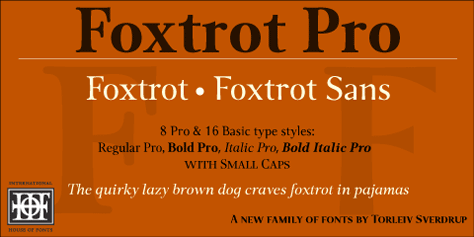
P22's Foxtrot Font Family Designed for Text & Display
The P22 Foxtrot Pro family of fonts is the latest design by Norwegian type designer Torleiv Sverdrup for IHOF. The design of Foxtrot is inspired by the lively ballroom dance of the same name. It is a transitional antiqua with rounded serifs that features ligatures, smallcaps, oldstyle numerals and full Central European support for those with applications that support OpenType features. The companion, Foxtrot Sans, is a sans serif version with a little more jazzy expression. Both fonts are great for text and display.
Pro Opentype features include: Stylistic Alternates, Standard Ligatures, Discretionary Ligatures, Historical Forms, Small Caps, Oldstyle Figures, Fractions, Denominators, Numerators, Superscript and Scientific Inferiors.